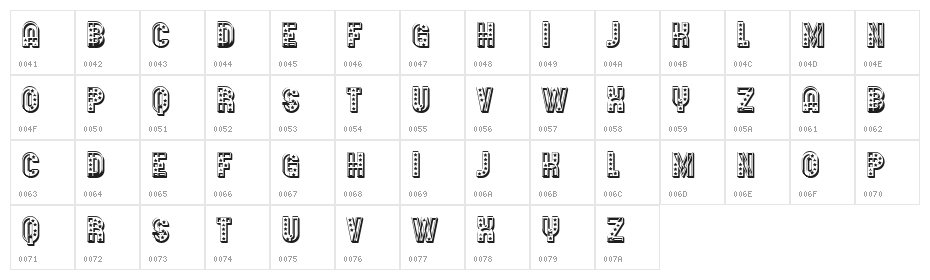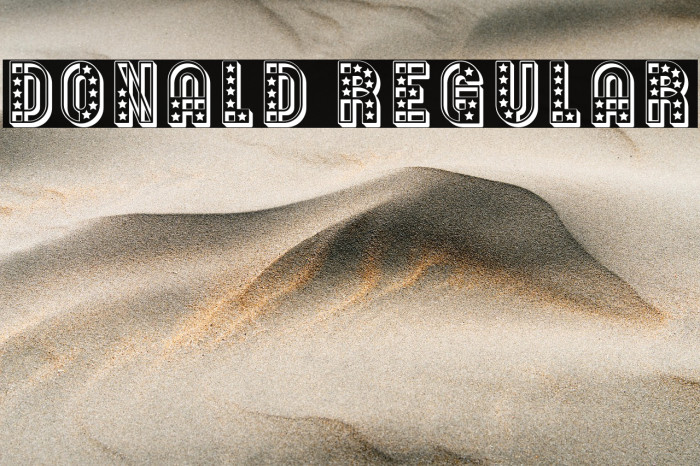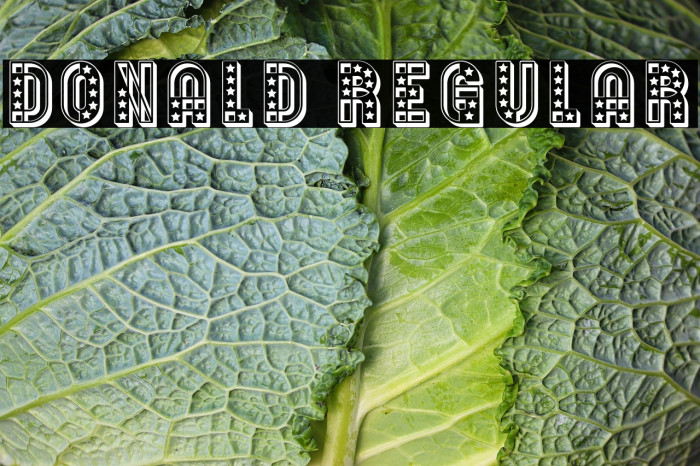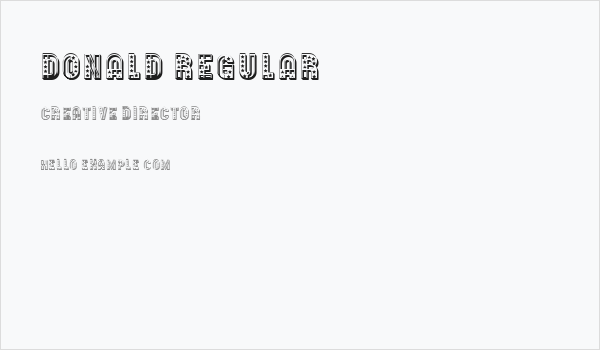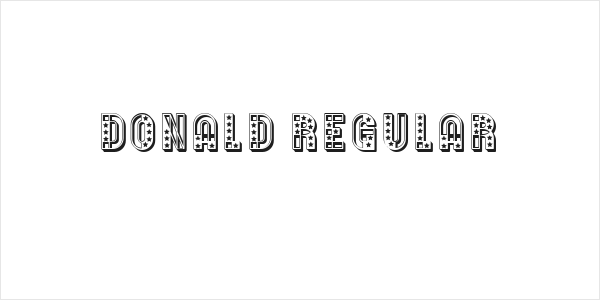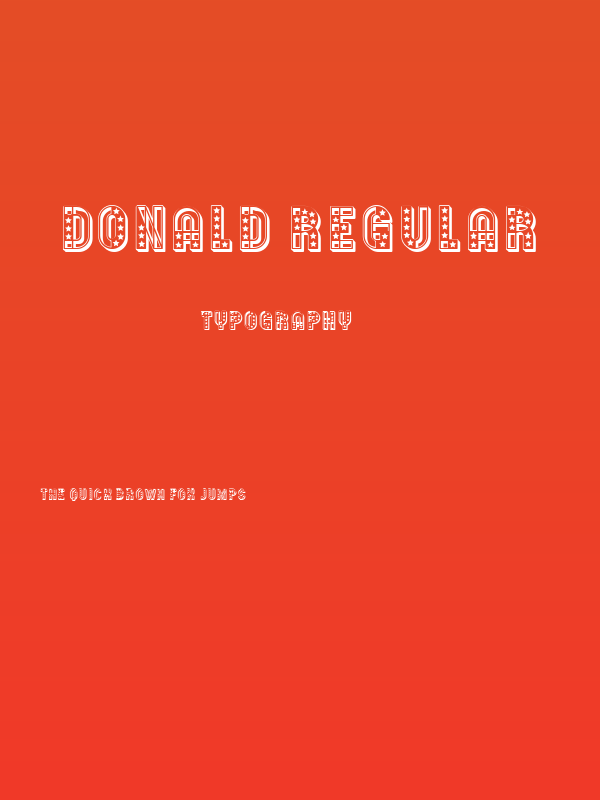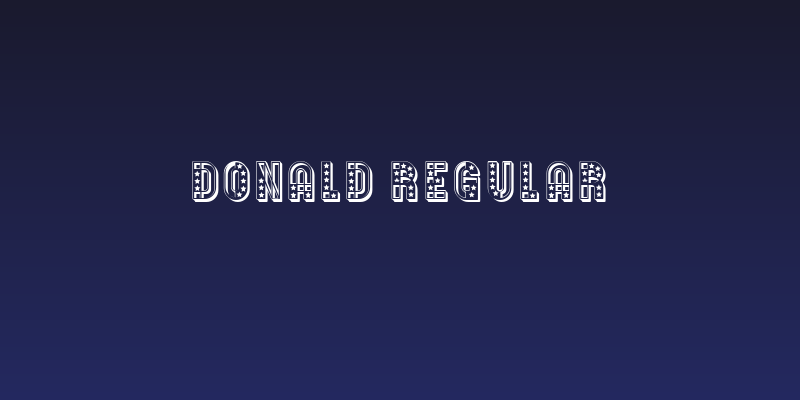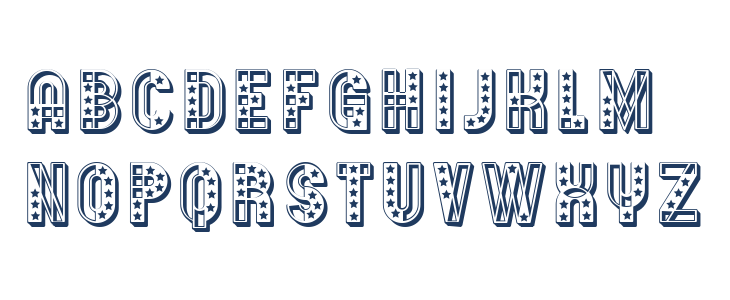
Donald Regular Font
This font features a bold, decorative style with a unique star pattern embedded within each character. The letters are outlined with a thick black border, enhancing their visibility and adding a three-dimensional effect. The stars within the characters give it a playful and eye-catching appearance, making it ideal for designs that require a standout element. The uppercase letters are uniform in height, and the overall design is consistent across the alphabet. This font is particularly suitable for projects that aim to convey a sense of fun, celebration, or patriotism.
| Proposed Projects | Ideal for posters, banners, event invitations, and festive designs. |